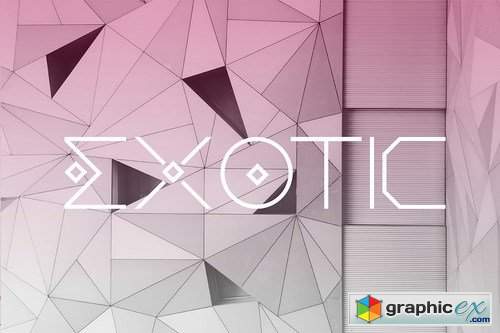
Becko Future Sans
Becko fonts includes uppercase letters, numerals, a large range of punctuation. sans serif font with modern style. Created for poster, web design, branding, illustrations, badges and some other works.